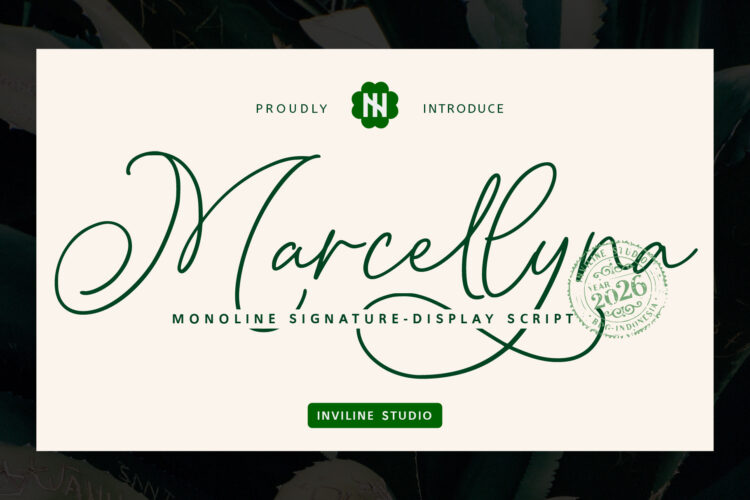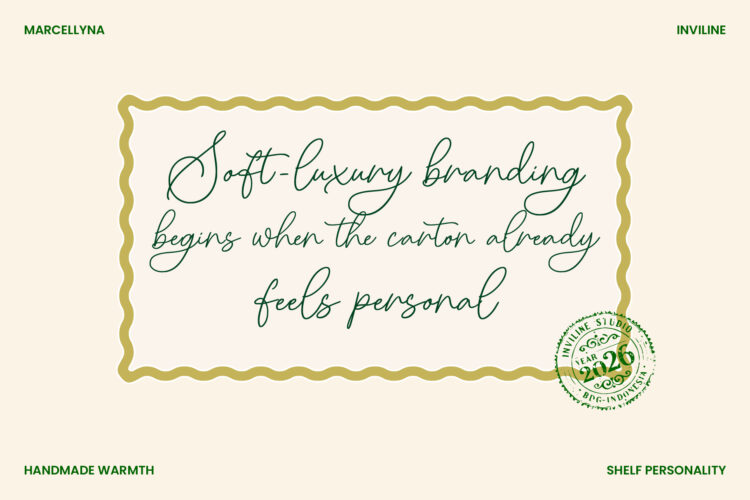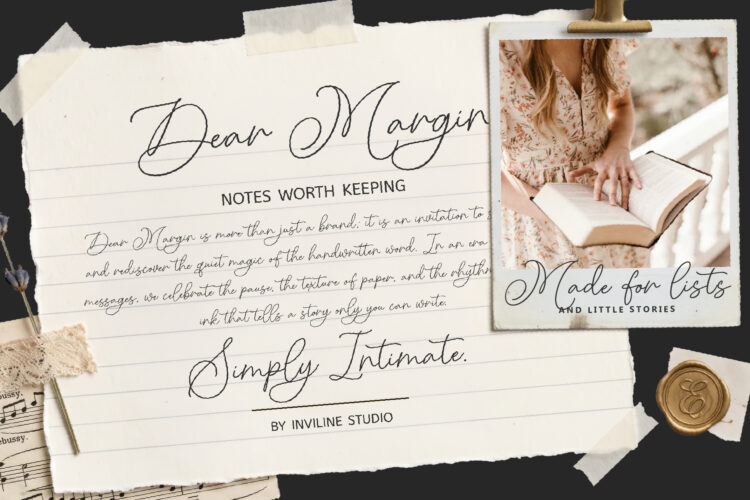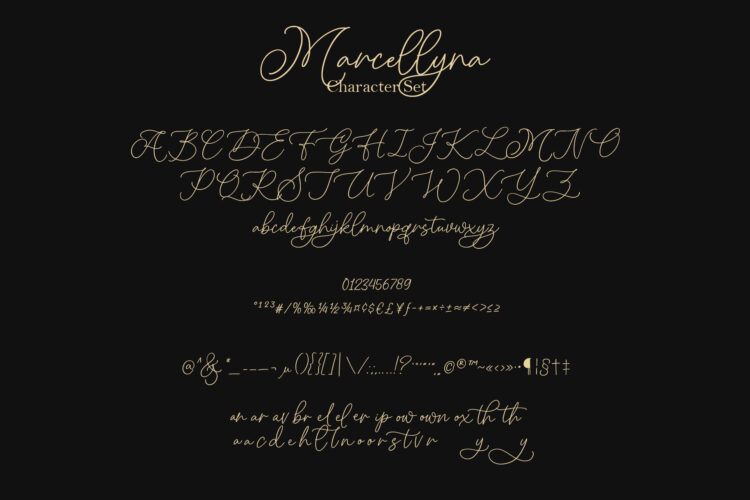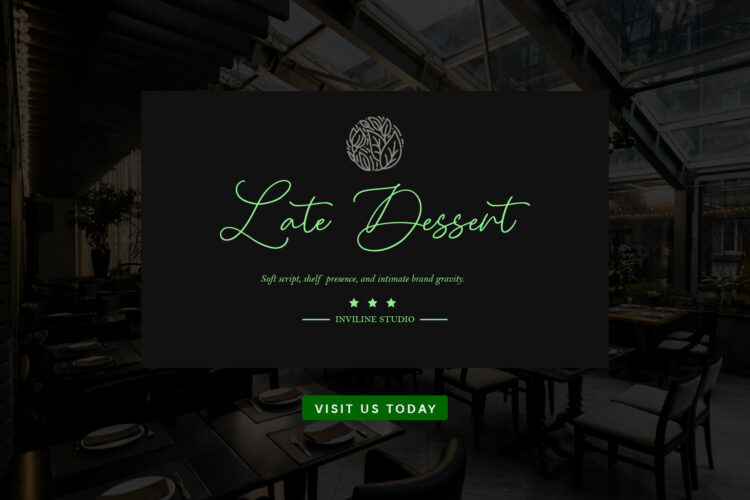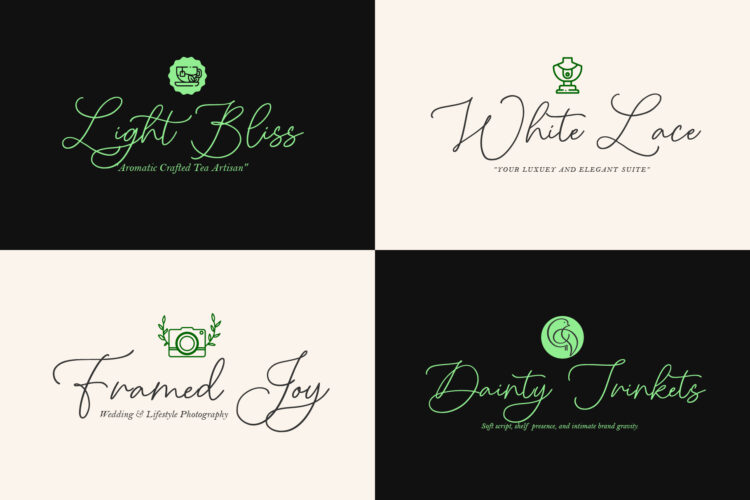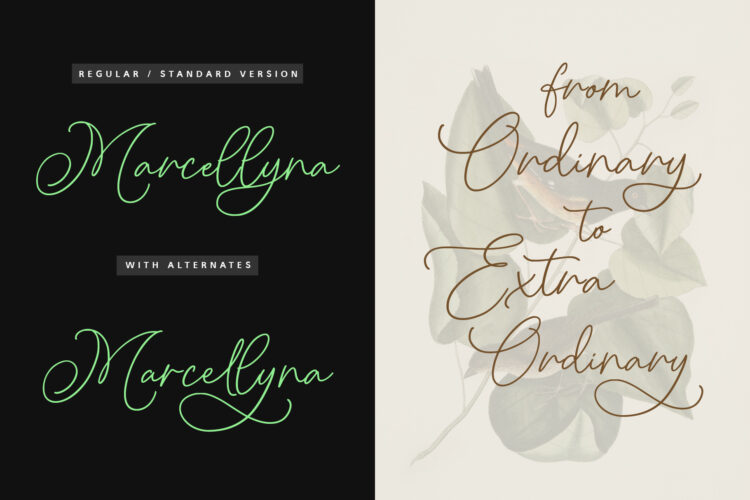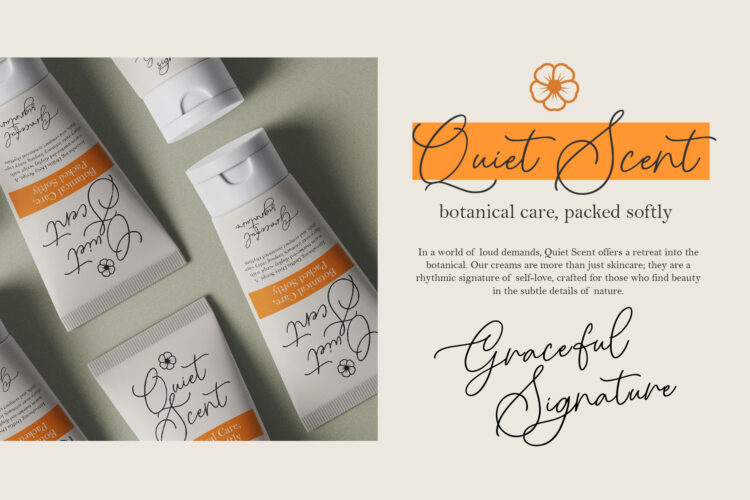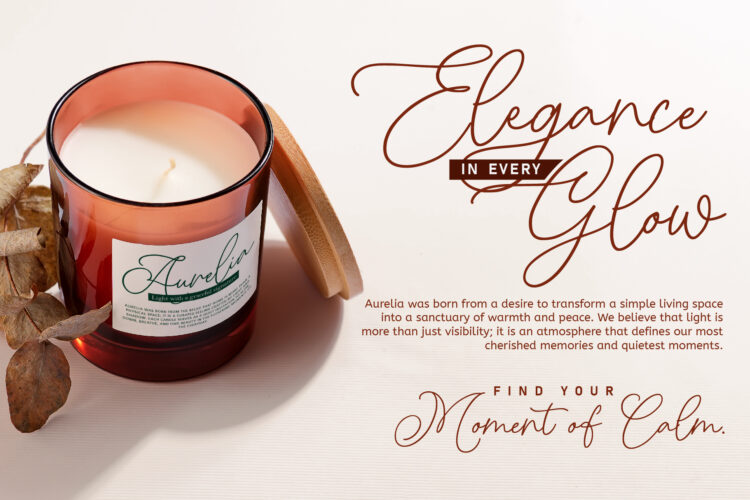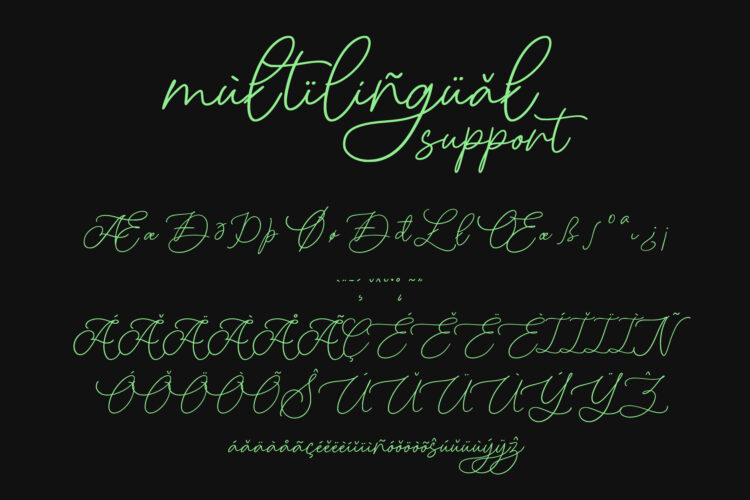
Marcellyna is a monoline signature-display script crafted by Inviline Studio for brands, creatives, and makers who want typography that feels genuinely handwritten.
Drawn with a natural pen rhythm, Marcellyna carries the intimacy of a real signature, fluid strokes, elegant loops, and a quiet personality that elevates packaging, logos, invitations, and product labels the moment it’s applied.
What separates Marcellyna from typical script fonts is its uniform stroke weight. Where most calligraphic scripts rely on thick-thin contrast for impact, Marcellyna uses flow and form — giving it a contemporary, approachable quality that works equally well large on a product label or small in a watermark.
• Stylistic alternates (OpenType ss01)
• Ligatures: an, ar, av, br, el, ef, er, ip, ow, own, ox, th (liga)
• Full multilingual / diacritic support
Perfect For:
Branding & Logos · Packaging & Labels · Wedding Invitations
Thank-You Cards · Candle & Skincare Brands · Photography Watermarks
Social Media Headers · Fine Stationery